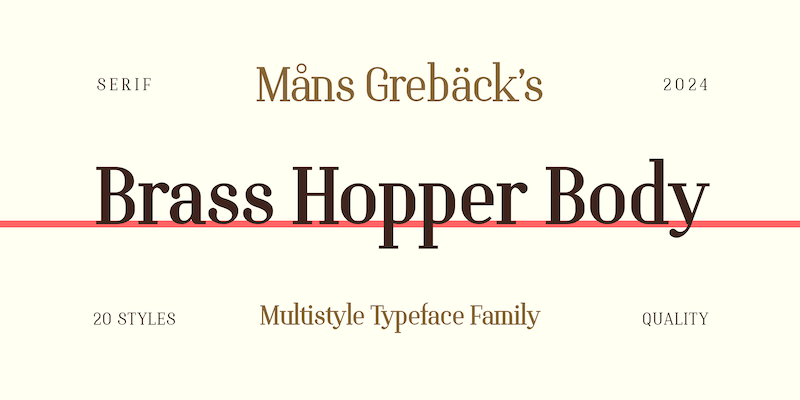
Preview and download Brass Hopper Body Font. Created by Måns Grebäck in Basic Serif styles with Free for personal use license.
NOTE: This font is for PERSONAL USE ONLY! To purchase a commercial license, visit: http://mn.sg/brass-hopper Brass Hopper Body is a serif font that embodies structural design. A modern geometrical typeface, Brass Hopper is characterized by strict shapes and a touch of formality. For questions, please visit www.mansgreback.com/faq |